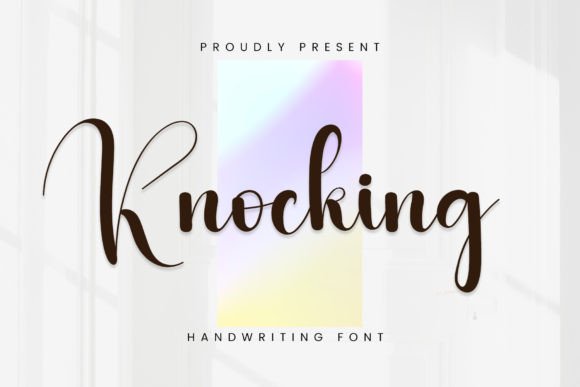
Behold the Enchanting World of Knocking Font: Where Elegance Meets Playfulness
In a realm where creativity reigns supreme, there exists a font that captures the essence of charm and sophistication like no other – Knocking Font. This exquisite script font, crafted with meticulous care by the renowned YanStudio, is an ode to the beauty of handwritten artistry. With its delicate strokes and flowing curves, Knocking Font transports you to a world of whimsical wonder, where every letter dances with grace and elegance.
Knocking Font: The Perfect Canvas for Your Creative Expressions
Whether you're a seasoned graphic designer seeking to elevate your projects or a passionate crafter yearning for a touch of uniqueness, Knocking Font is your ultimate companion. Its versatility knows no bounds, seamlessly adapting to a myriad of design concepts. From branding and logos that exude timeless elegance to wedding invitations and greeting cards that radiate warmth and charm, Knocking Font effortlessly adds a touch of magic to every creation.
Immerse Yourself in a Universe of Endless Possibilities
Unleash your imagination and let Knocking Font guide you through a boundless realm of creative possibilities. Its enchanting characters lend themselves flawlessly to fashion and lookbook designs, infusing them with a touch of whimsical sophistication. Marketing promotions and social media campaigns take on a life of their own with Knocking Font, captivating audiences with its captivating allure. And whenever you seek to make a statement that is both elegant and approachable, Knocking Font stands ready to elevate your vision.
Embrace the Joy of Elegant Simplicity
With Knocking Font, complexity and simplicity harmoniously intertwine, creating a font that is both visually stunning and effortlessly readable. Its intricate details and flourishes lend a touch of playful elegance, while its clean lines and balanced proportions ensure effortless readability. Whether you're crafting a heartfelt message or designing a captivating logo, Knocking Font ensures that your words leave a lasting impression, both visually and emotionally.
A Font that Evokes Emotion and Captivates Hearts
Knocking Font possesses an innate ability to elicit emotions and forge connections. Its gentle curves and flowing strokes evoke a sense of joy and romance, making it the perfect choice for projects that aim to capture the heart. From wedding invitations that exude timeless elegance to greeting cards that convey heartfelt sentiments, Knocking Font adds a touch of magic that resonates with audiences on a deeper level.
Experience the Beauty of Handwritten Charm
Knocking Font is more than just a font; it is an embodiment of handwritten artistry, capturing the essence of personal expression. Its carefully crafted characters mimic the natural flow and spontaneity of handwriting, infusing your designs with a touch of warmth and authenticity. Whether you're creating a personal journal, designing a heartfelt letter, or crafting a unique branding identity, Knocking Font effortlessly adds a human touch that speaks volumes.